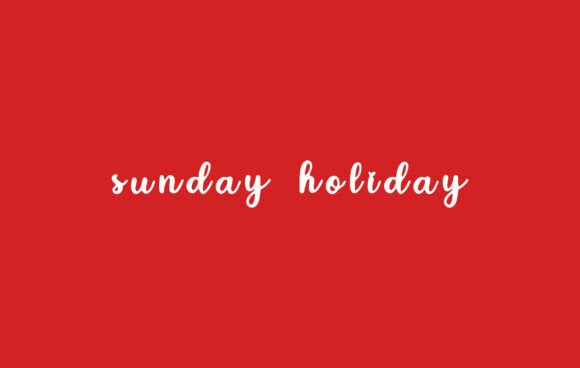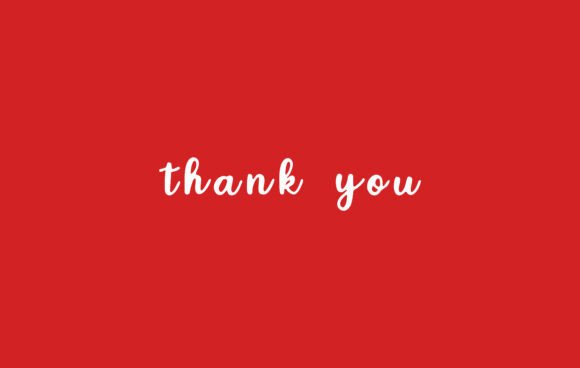
Introduction to Skaterblock Font
Have you ever stumbled upon a font that instantly sparks your creativity and sets your design project ablaze? For me, that moment happened when I discovered the Skaterblock Font. Its authentic handwritten style with a romantic touch is like a breath of fresh air in the world of typography.
As a designer, I can attest that having a reliable design resource like Skaterblock Font can make all the difference in bringing your creative project to life. Whether you’re working on a magazine headline, social media campaign, or wedding invitation, this high-quality font is sure to elevate your design to new heights. With its legibility and versatility, Skaterblock Font is perfect for designers looking to add a touch of elegance and sophistication to their work.
Key Features of Skaterblock Font
- High-quality design resource suitable for creative projects requiring a modern, edgy look.
- Designed with a unique, graffiti-inspired aesthetic, perfect for adding a touch of street art to any creative project.
- Includes a range of characters and glyphs, ensuring that designers have the flexibility to express themselves freely.
Honest Review: Skaterblock Font
I recently stumbled upon the Skaterblock Font, a design resource that’s caught my attention. This font is perfect for creative projects that require a modern, edgy look.
- What works well: ✨ The font’s high quality and unique design make it a great addition to any design project. The transparent background also makes it easy to use on different backgrounds.
- What works well: ✨ The font’s versatility is another plus, making it suitable for various design applications, from logos to typography-based art.
However, I do have a few concerns. ⚠️ The font’s size is quite large, which might make it difficult to use in small design projects. Additionally, some users might find the font’s edgy design to be too bold or overwhelming.
Overall, I think the Skaterblock Font is a great resource for designers who want to add a modern twist to their creative projects. With its high quality and unique design, it’s definitely worth checking out. Plus, it’s available for free download, making it an excellent addition to any designer’s toolbox.
Tips for Getting the Most Out of Skaterblock Font
To get the most out of the Skaterblock Font, experiment with different font sizes, colors, and combinations to create unique and visually appealing designs. You can also use the font in conjunction with other design resources, such as graphics and images, to create a cohesive and engaging visual identity.
Common Use Cases for Skaterblock Font
The Skaterblock Font is perfect for a variety of creative projects, including social media graphics, blog posts, and business presentations. Its unique design and transparent background make it ideal for creating clean and modern designs that stand out from the crowd.